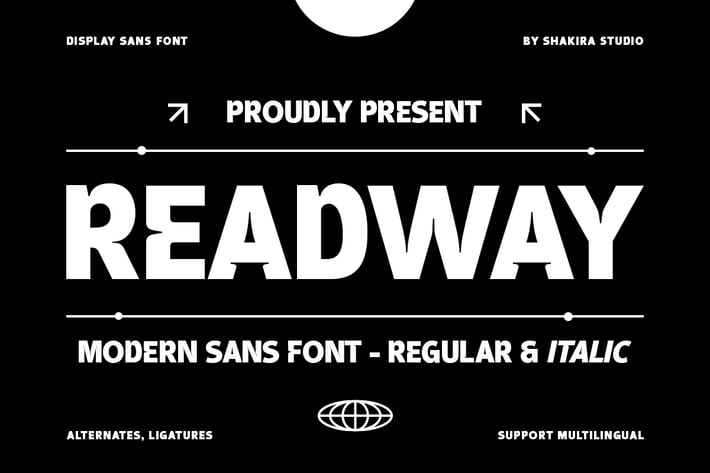
Readway - Modern Sans Font
"Introducing Readway, a modern Display Sans Serif font that boasts bold and unique characters. Perfect for grabbing attention in your designs, Readway comes in both regular and italic versions, providing versatility for various creative projects. Whether used for headlines, posters, or branding, this font stands out with its contemporary flair and strong presence."
- Regular & Italic
- Opentype features ( ligature, alternate )